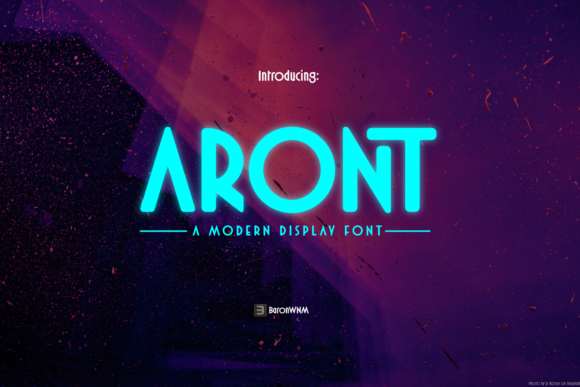
Unleash Your Creative Vision with Aront: A Font That Captivates and Commands Attention!
Embark on a typographic journey with Aront, where boldness, simplicity, and a touch of techno essence converge to create a display font that leaves an indelible mark. Aront is not just a font; it's an artistic expression that elevates your designs to extraordinary heights, transforming them into captivating visual masterpieces.
With its striking presence and PUA encoding, Aront grants you effortless access to a world of glyphs and swashes, inviting you to explore the depths of creative possibilities. Unleash your imagination and let Aront's distinctive characters dance across your web designs, business cards, and any project that yearns for a touch of uniqueness.
Aront isn't merely a font; it's a gateway to a realm where your creative vision flourishes. Its remarkable versatility lends itself effortlessly to a kaleidoscope of design applications, from film posters that ignite emotions to business cards that leave a lasting impression. With Aront as your artistic ally, the possibilities are boundless.
Indulge in the allure of Aront's meticulously crafted characters, each imbued with a distinct personality that commands attention. Witness how this font breathes life into your designs, attracting the gaze of your audience and leaving them spellbound. Aront is more than just a font; it's a captivating force that transforms your creations into works of art that resonate with your audience.
Don't settle for ordinary fonts. Embrace the extraordinary with Aront, a font that ignites your creativity, captivates your audience, and elevates your designs to new heights of brilliance. Let Aront be your creative companion, guiding you toward typographic triumphs that leave an unforgettable impact.